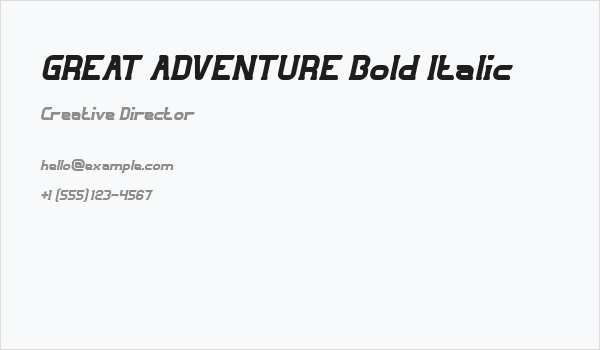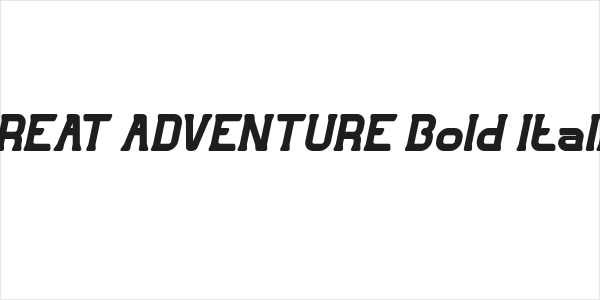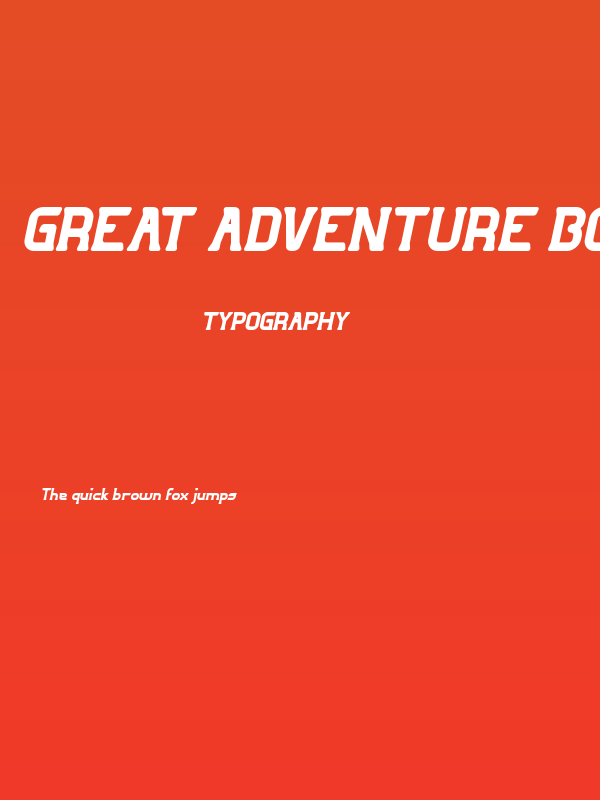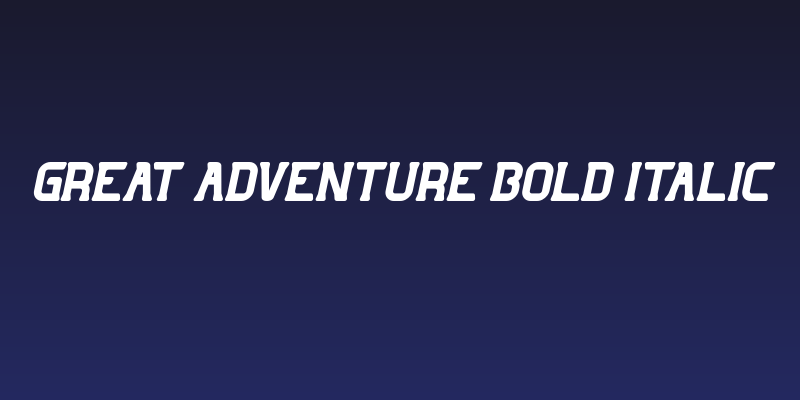
GREAT ADVENTURE Bold Italic Font
GREAT ADVENTURE Bold Italic Description
This font features a bold and italic style with a modern, adventurous flair. The characters are slightly slanted, giving a sense of motion and dynamism. The strokes are thick and consistent, providing a strong visual impact. The letters have a geometric structure with rounded edges, contributing to a friendly yet assertive appearance. The numerals and special characters maintain the same boldness and style, ensuring uniformity across all text elements. This font is particularly suitable for projects that require a bold statement, such as branding, headlines, and posters.
| Proposed Projects | Ideal for branding, headlines, posters, and any project needing a bold, adventurous look. |